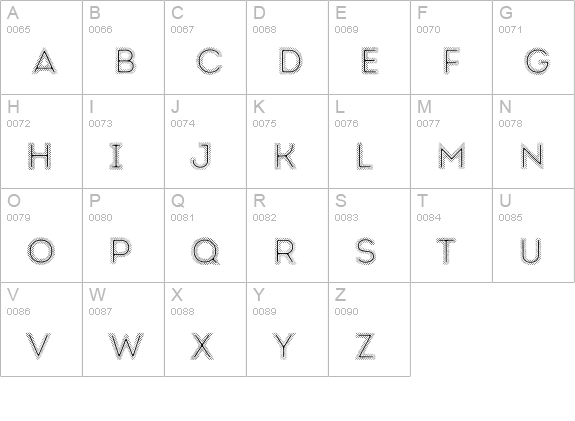
Intro Rust H1 Fill 2 Line Font Details
Intro Rust H1 Fill 2 Line font is a bold and stylish display typeface that exudes a sense of strength and modernity. This unique font features two lines filled with a geometric pattern that adds a touch of creativity to any design. The combination of clean lines and intricate details makes this font perfect for eye-catching headlines, logos, and branding projects. The best part? Intro Rust H1 Fill 2 Line font is available for free download at FontsMarket.com. Whether you're a designer looking to add a fresh look to your projects or a business owner seeking a distinctive font for your branding, this font is a versatile option that will make your designs stand out. With its bold presence and contemporary aesthetic, Intro Rust H1 Fill 2 Line font is sure to make a statement and leave a lasting impression.